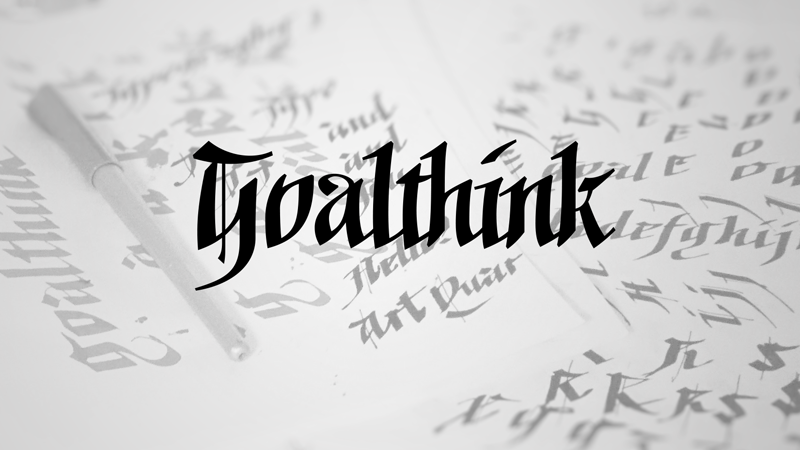
This font is intended to be a goal-think of the combination of traditional Goethe fonts and personal hand-writing & Thank you watching and used this! This font used commercially is USD$25 for a one time payment. You can pay this by my PayPal and I'll send you a License Agreement. more detail: This font is free for personal use. If you want commercial use or have any question plz contact me use email: erikin1205[at]gmail[dot]com |